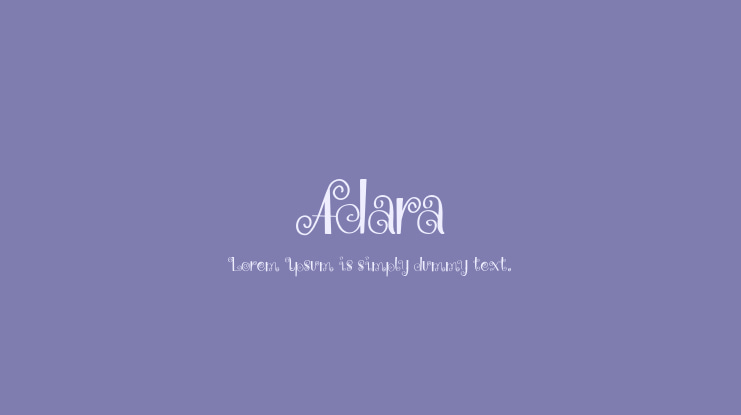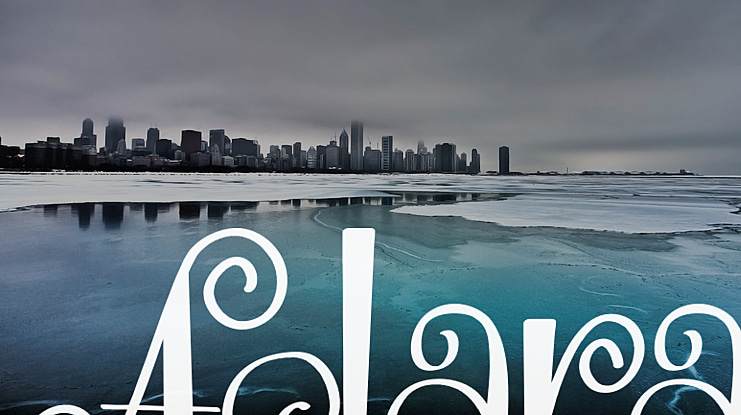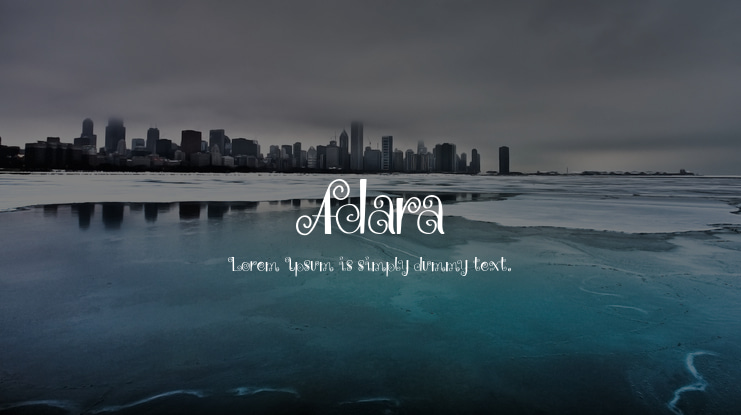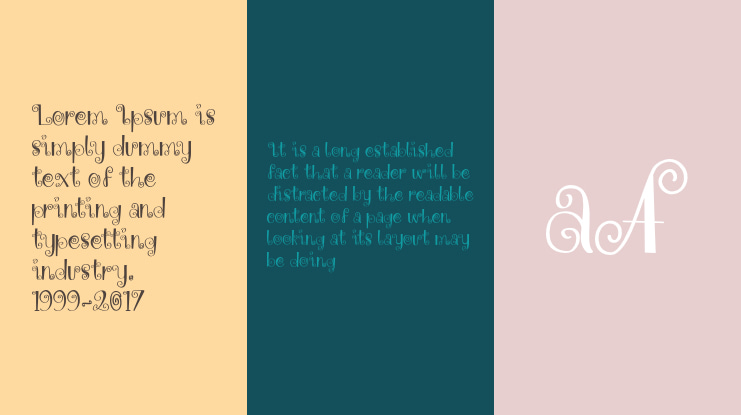
Adara Font
This font is made with sincerity and the desire to present a work that is as natural as possible so that it looks pretty cute but still looks elegant.